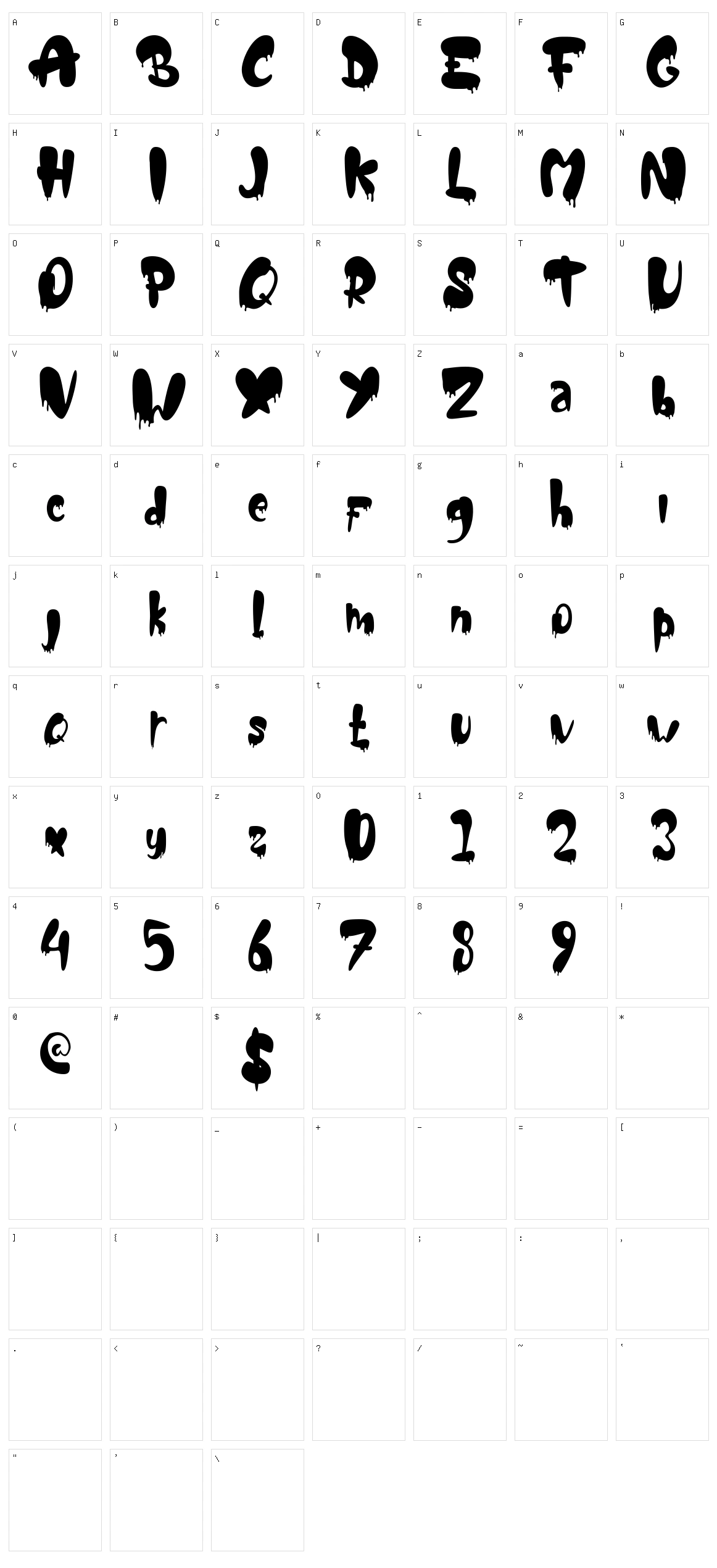
The free font Umbridge Con is carefully designed by Nariswari Creative, showcasing a thoughtful balance of creativity and usability and falls under the Horror font style. When you download the ZIP file, it contains only 28.15 KB of font files, making it lightweight and quick to download. Please review the license details below to understand permitted usage and distribution rights. If license information is not available, we recommend using this font for personal projects only or contacting the author directly for commercial usage permissions.